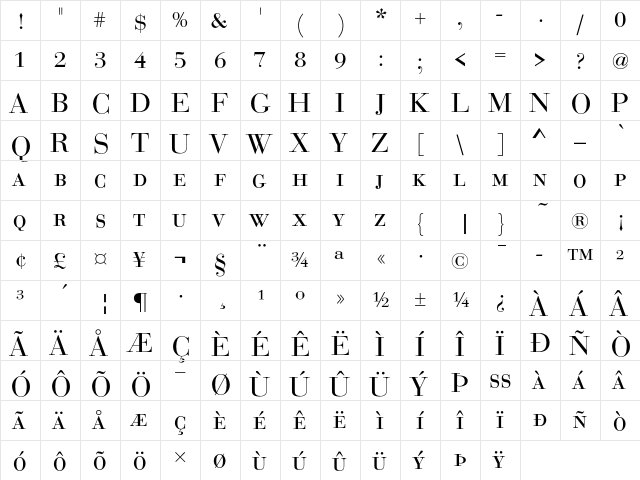
Bauer Bodoni DC D Regular
Design Context for Bauer Bodoni DC D Typeface
Bauer Bodoni DC D offers clean, dependable letterforms without strong stylistic allegiance, making it a practical choice for designers who need flexibility.
Pro Tip: Use Bauer Bodoni DC D in both headline and body roles to test its range before committing to a single application.